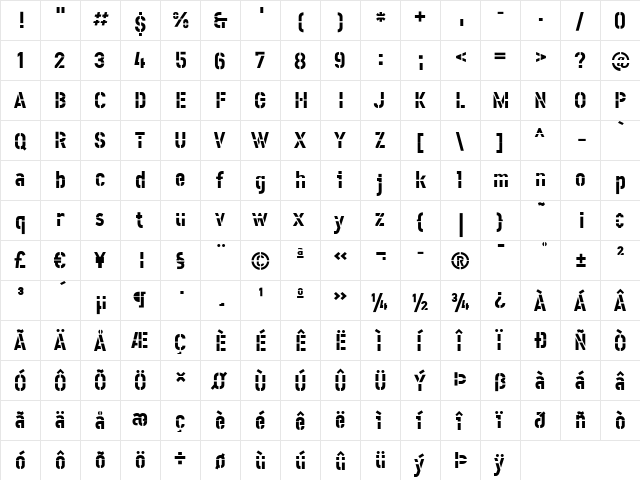
Offline Bold
| Foundry | Roelof Mulder, . Published by FontShop International. FontFont Release |
Design Context for Offline Typeface
Offline takes a measured approach to typography — its balanced proportions and neutral character make it a reliable workhorse for both digital and print work. Its bold stroke weight gives it real presence on the page.